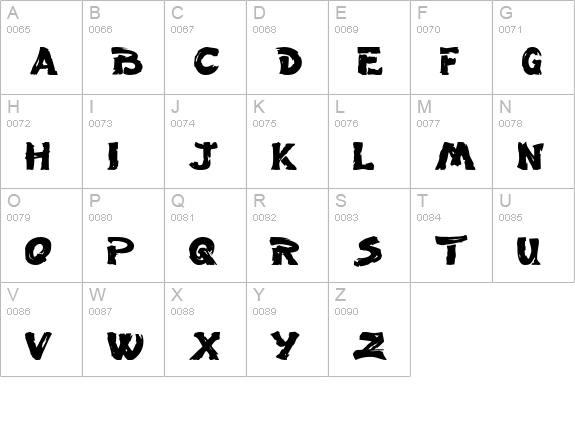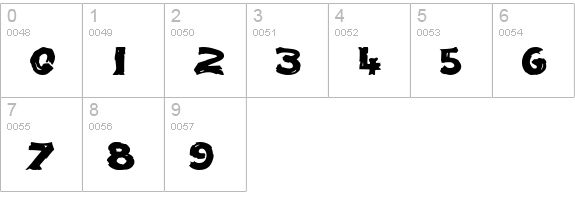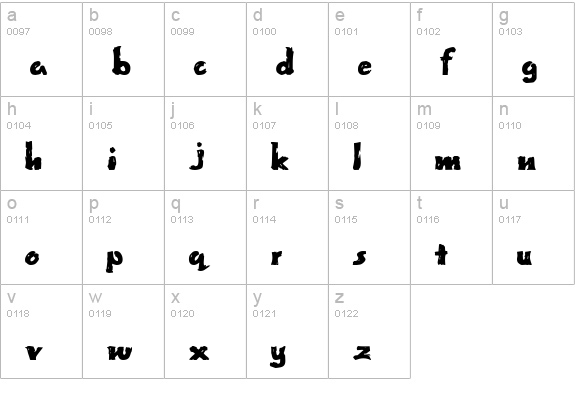
PaintExtended Normal Font Details
PaintExtended Normal is the standard, neutral variant in the PaintExtended typeface family \xE2\x80\x94 well suited to general body text, paragraphs, and standard typographic work.
PaintExtended Normal is a versatile and stylish font that will bring a touch of creativity to any project. Whether you're designing a poster, creating a logo, or crafting eye-catching headings, this font is sure to make a statement. With its bold and slightly grungy appearance, PaintExtended Normal adds a unique and edgy vibe to your designs. The letters have a hand-painted look, giving them a sense of authenticity and character. Each stroke has a slight irregularity, adding to the overall artistic appeal. This font is perfect for projects that require a playful yet professional touch. It can be used for a wide range of design purposes, from branding and advertising to social media graphics and website headers. Its versatility makes it suitable for both digital and print applications. One of the best things about PaintExtended Normal is that it is completely free to download at FontsMarket.com. This means you can add this font to your collection without having to spend a dime. Simply head over to FontsMarket.com and start using PaintExtended Normal in your projects today. So, if you're looking for a unique and expressive font that will make your designs stand out, look no further than PaintExtended Normal. Download it for free at FontsMarket.com and let your creativity flow.